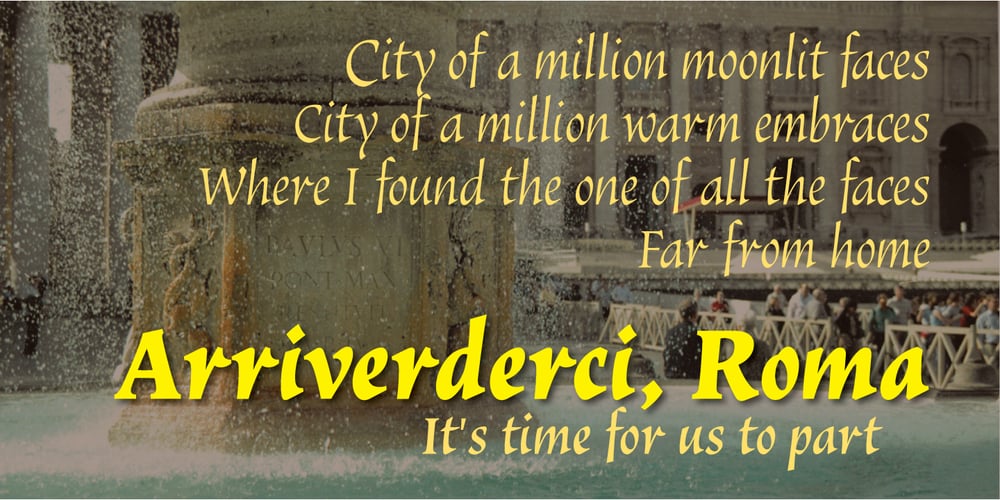
Vatican Font Family was designed by Alan Meeks and published by Alan Meeks. Vatican contains 3 styles and family package options. Vatican is a calligraphic face. The lower case is influenced by the lettering of Arthur Baker but the caps are more formal, the shape of the Cap V reminded me of a Bishops Mitre which led eventually to the name. The lighter weight works particually well in small text pieces